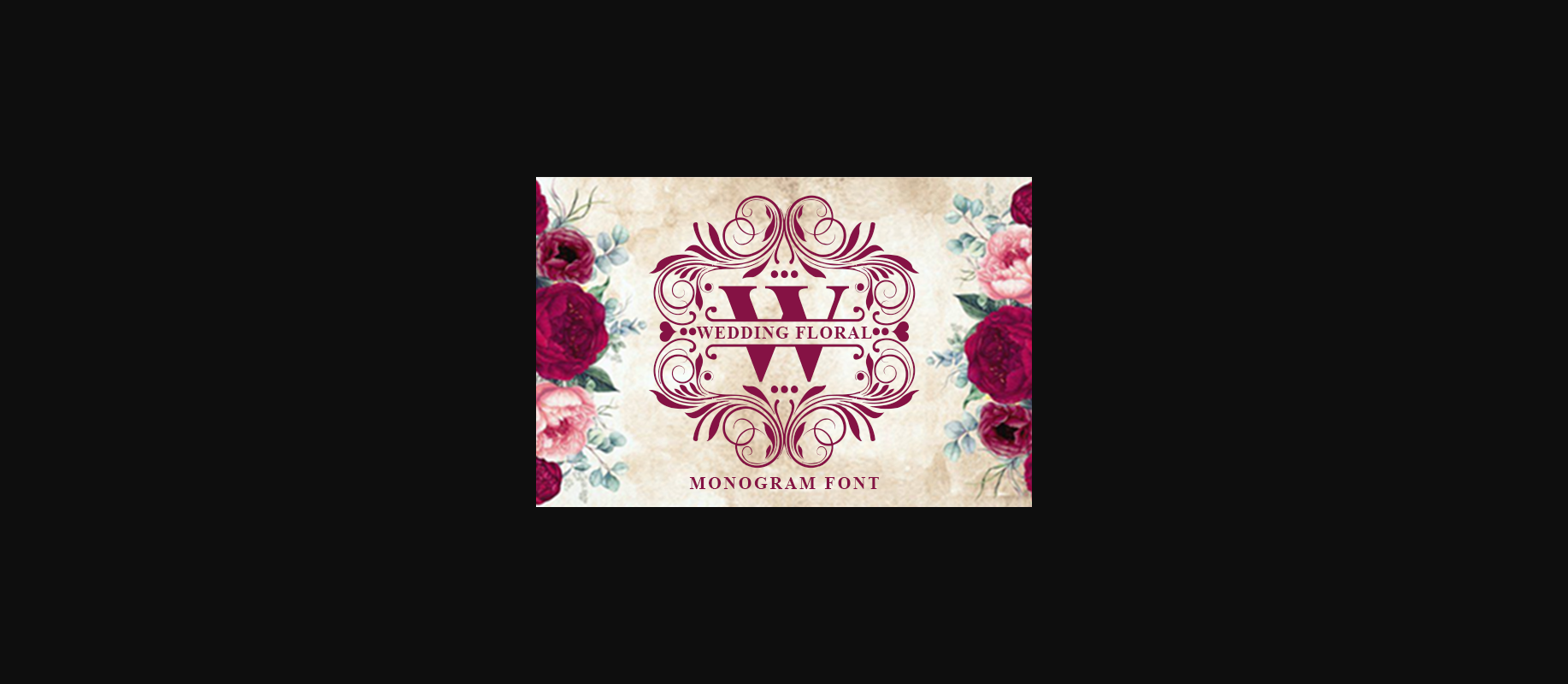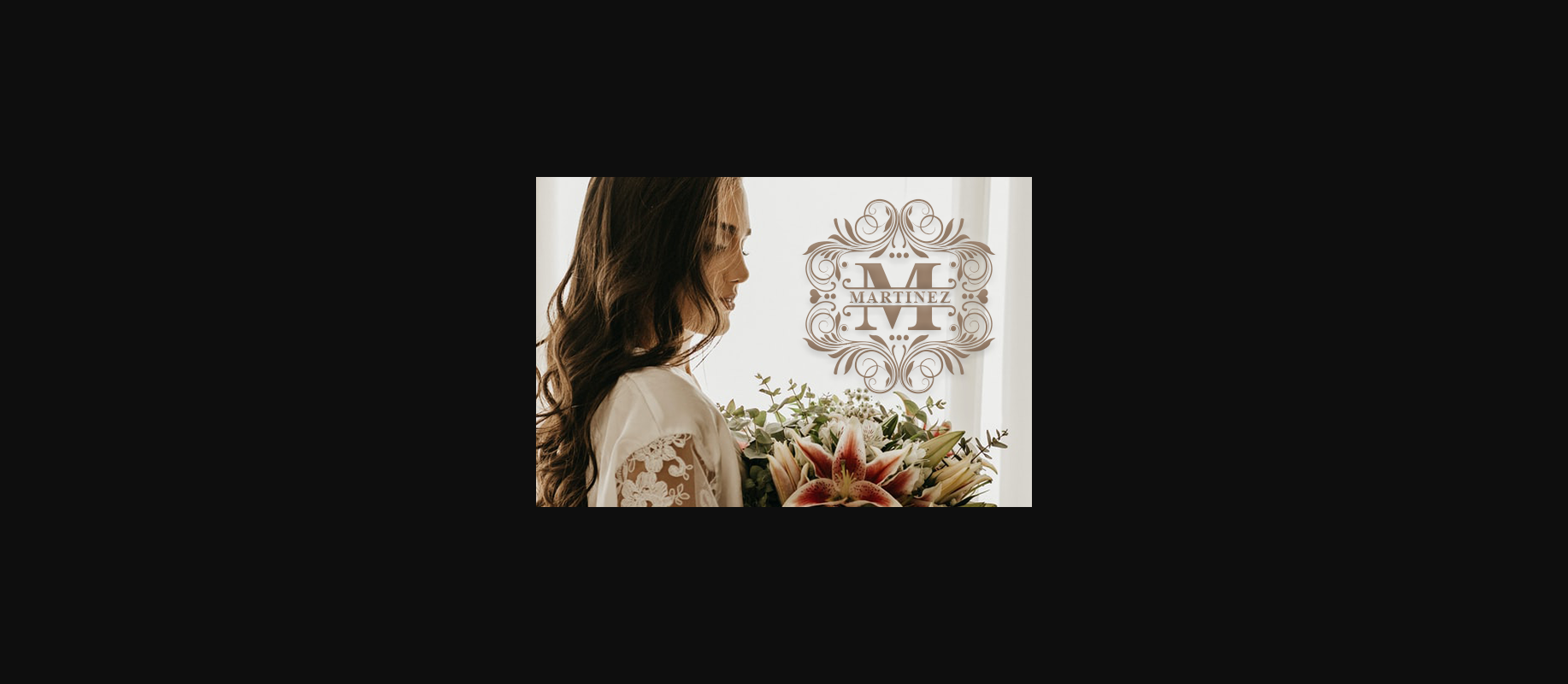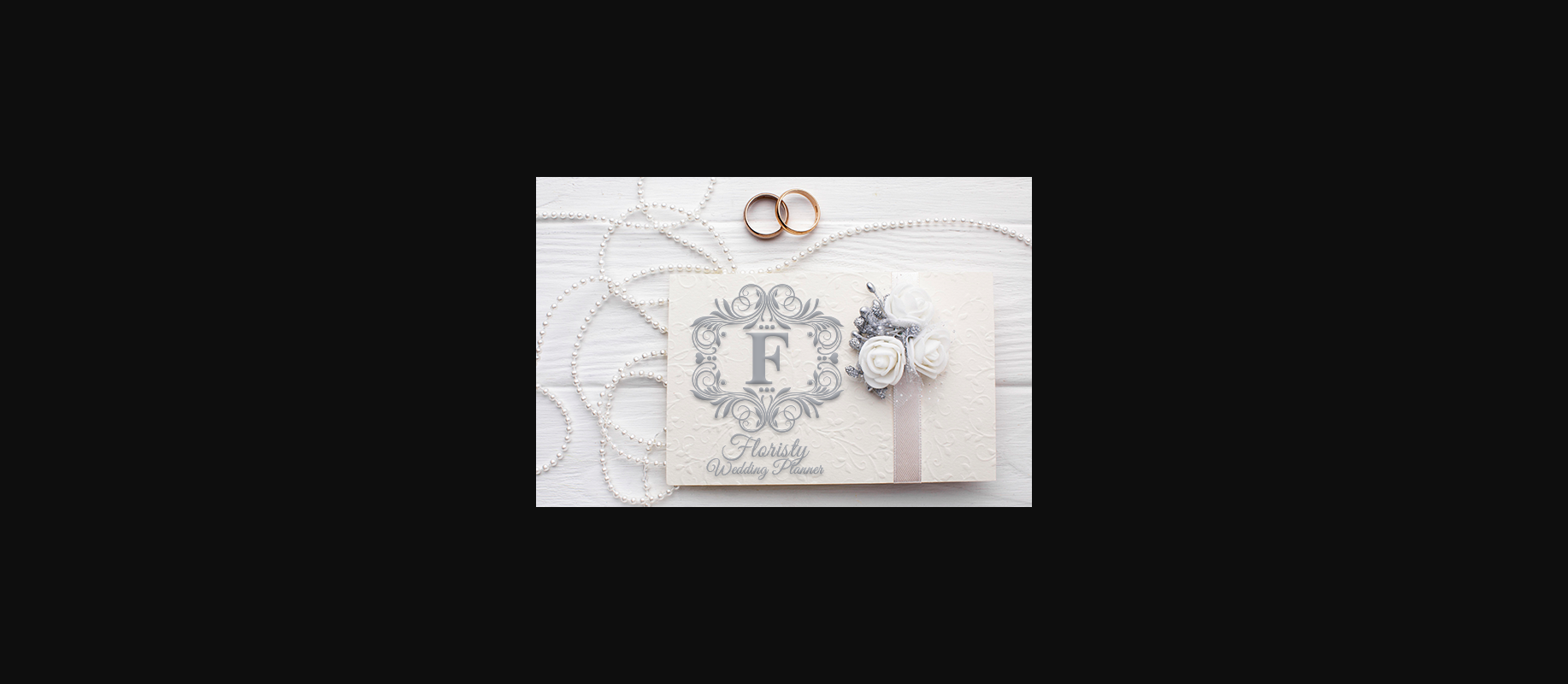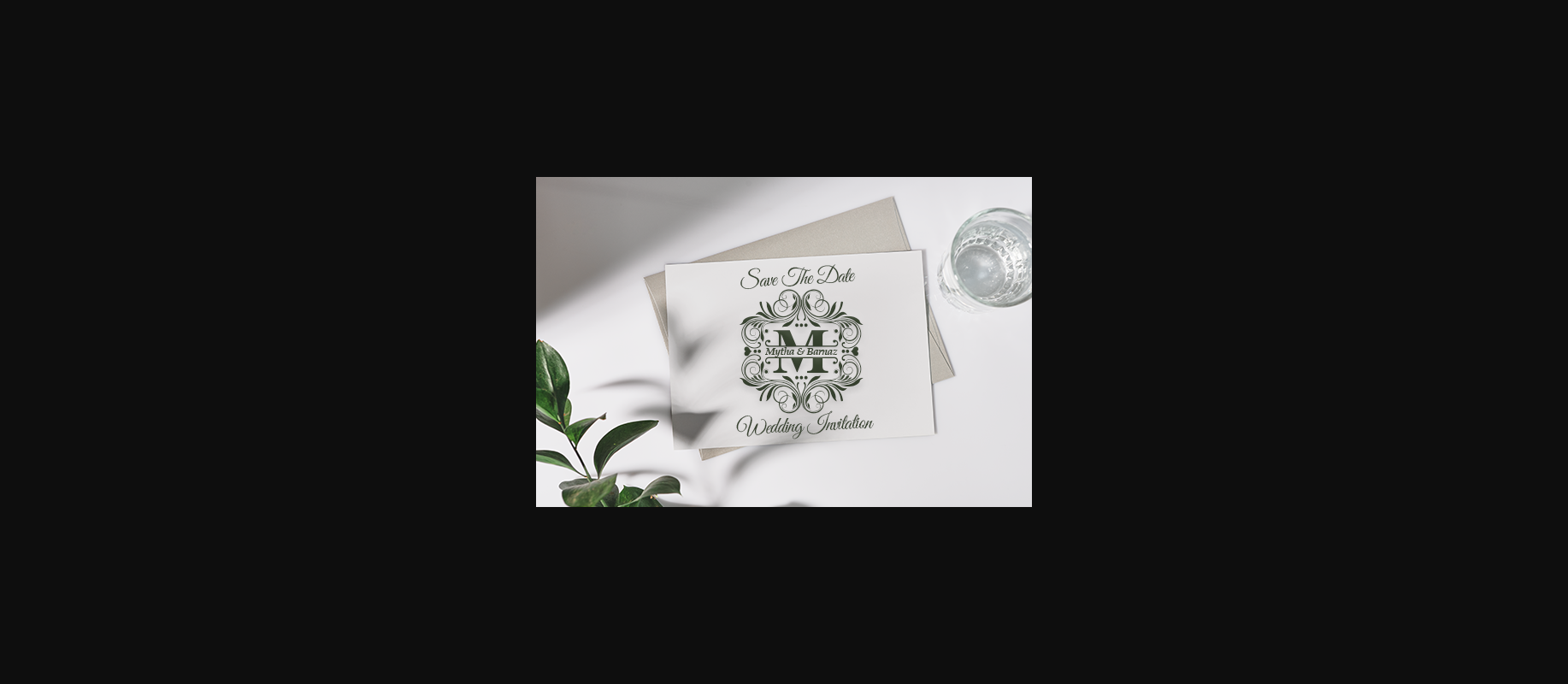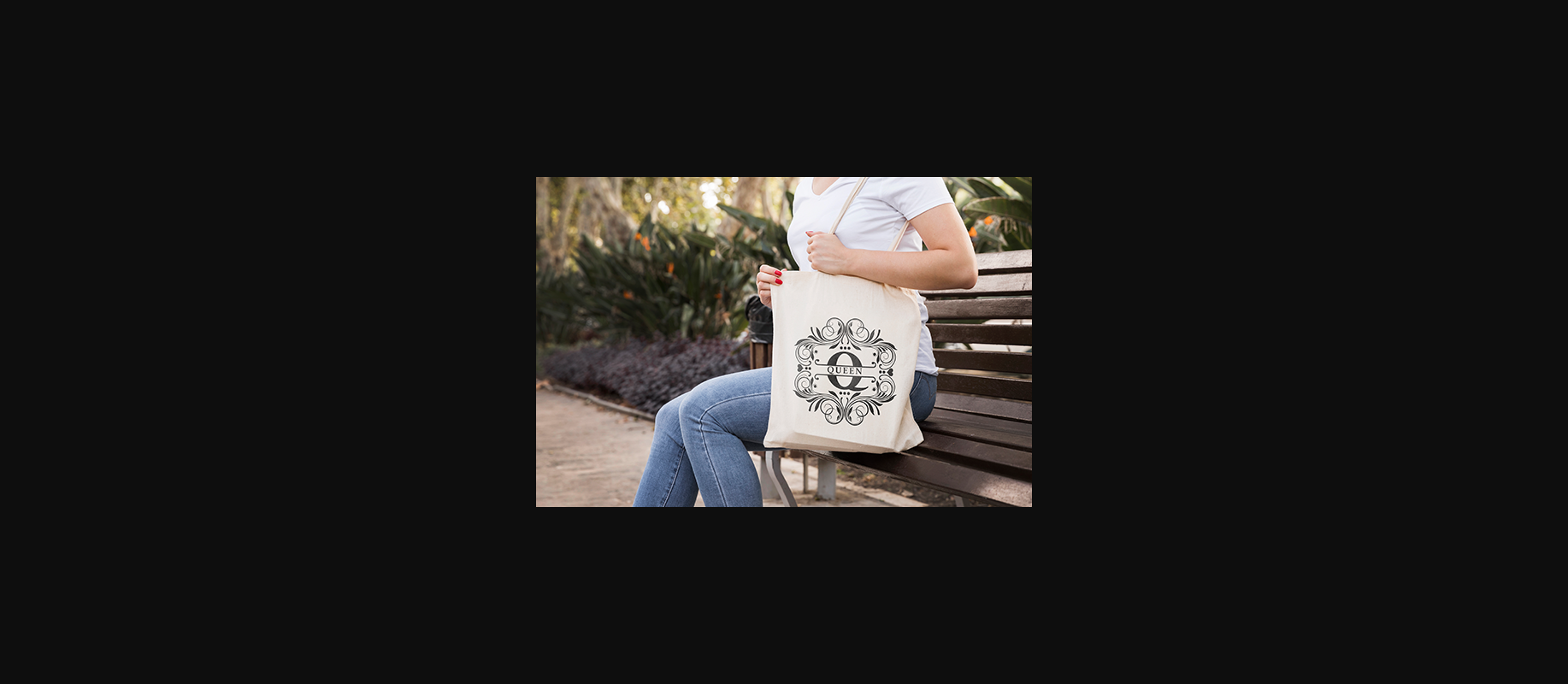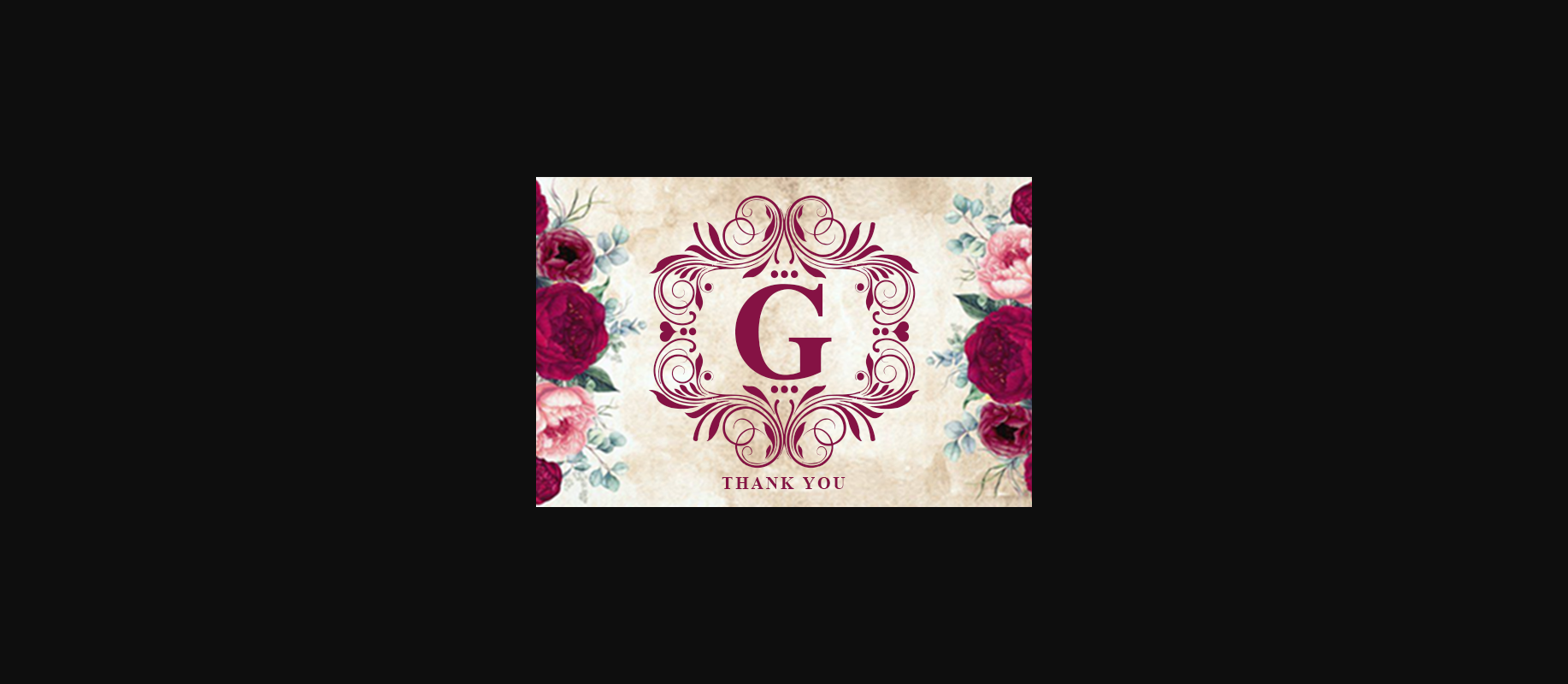
About Wedding Floral Monogram Font
Wedding Floral Monogram is an elegant decorative font, featuring lovely ornaments. Fall in love with its authentic feel and use it to create gorgeous wedding invitations, beautiful stationary art, eye-catching social media posts, and cute greeting cards.